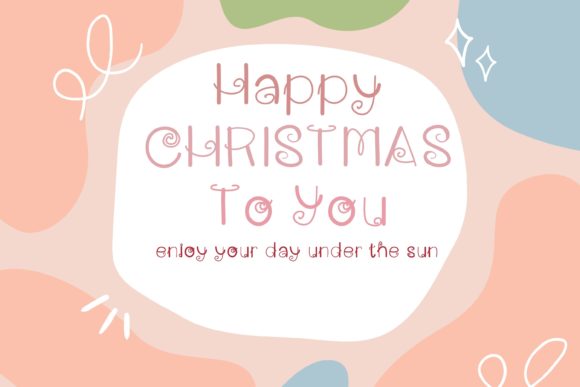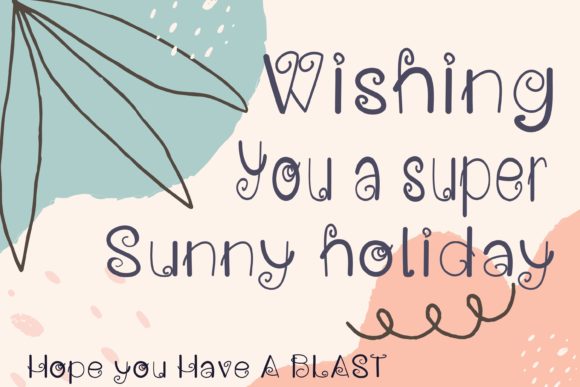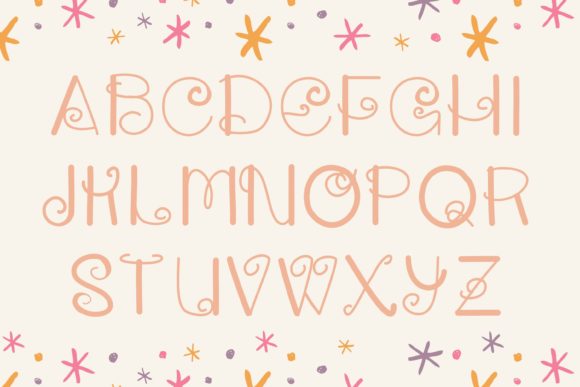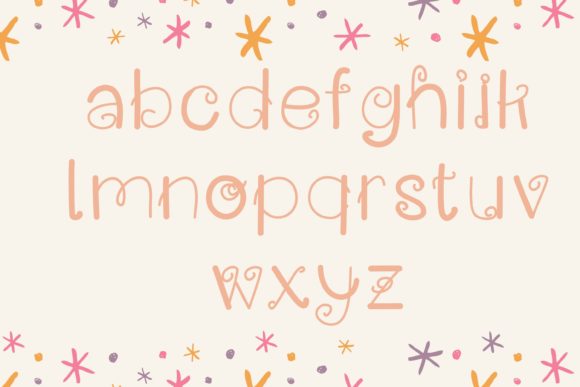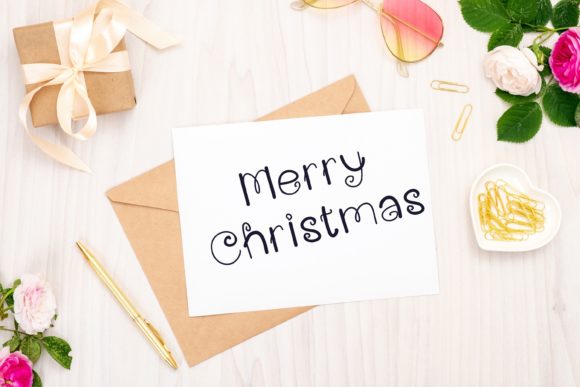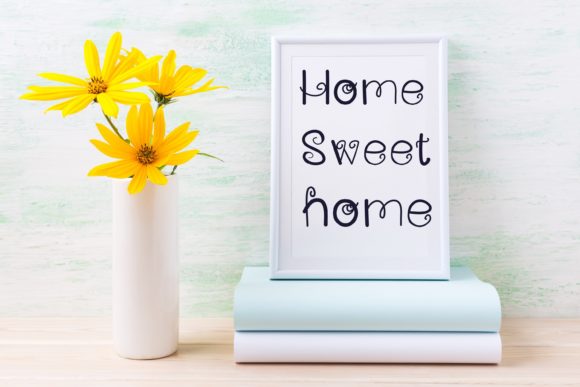
Ginger Bread Font: A Sweet and Whimsical Addition to Your Christmas Decorations
Are you looking for a unique and playful font to add to your Christmas letters, cards, or decorations? Look no further than the Ginger Bread font! This sweet and whimsical handwritten font is sure to make your holiday creations stand out. In this article, we’ll take a closer look at the Ginger Bread font, its features, and how you can use it to add a touch of festive fun to your designs.
What is the Ginger Bread Font?
The Ginger Bread font is a handwritten font designed to resemble the sweet and spicy treat of gingerbread. It’s a unique and playful font that’s perfect for adding a touch of whimsy to your holiday designs. The font features rounded edges, bouncy curves, and a carefree feel that’s sure to put a smile on anyone’s face.
Features of the Ginger Bread Font
The Ginger Bread font has several features that make it a great addition to your holiday designs. Some of its key features include:
- Handwritten style: The Ginger Bread font has a handwritten style that’s perfect for adding a personal touch to your designs.
- Whimsical feel: The font has a playful and whimsical feel that’s sure to add a touch of fun to your designs.
- Rounded edges: The font features rounded edges that give it a soft and friendly feel.
- Easy to read: Despite its playful style, the Ginger Bread font is easy to read, making it perfect for use in titles, headings, and body text.
How to Use the Ginger Bread Font
The Ginger Bread font is a versatile font that can be used in a variety of ways. Here are a few ideas for using the font in your holiday designs:
- Christmas letters and cards: Add the Ginger Bread font to your Christmas letters and cards for a personal and playful touch.
- Holiday decorations: Use the Ginger Bread font to create festive holiday decorations, such as garlands, banners, and signs.
- Social media graphics: Add the Ginger Bread font to your social media graphics, such as Facebook posts and Instagram stories, to add a touch of holiday cheer.
- Digital papers and scrapbooking: Use the Ginger Bread font to create digital papers and scrapbooking pages that are perfect for holiday crafting.
Tips for Using the Ginger Bread Font
Here are a few tips for using the Ginger Bread font in your designs:
- Pair with complementary fonts: Pair the Ginger Bread font with complementary fonts, such as serif or sans-serif fonts, to create visual interest.
- Use in moderation: Use the Ginger Bread font in moderation to avoid overwhelming your designs. It’s perfect for headings and titles, but may not be suitable for large blocks of text.
- Experiment with colors: Experiment with different colors and textures to add depth and interest to your designs.
The Ginger Bread font is a sweet and whimsical addition to any holiday design. Its playful style and rounded edges make it perfect for adding a touch of festive fun to your Christmas letters, cards, decorations, and more. With its ease of use and versatility, the Ginger Bread font is a must-have for designers and crafters looking to add a little holiday cheer to their creations.